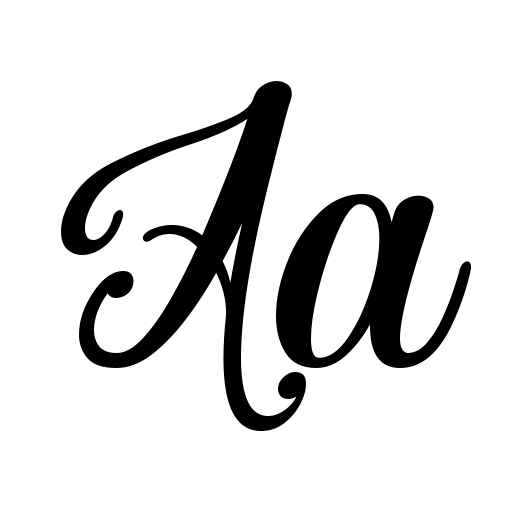
Brightly is a lively script font with a casual, hand-lettered feel, featuring smooth, flowing strokes and moderate contrast that convey warmth and friendliness. Its upright, slightly condensed letterforms and distinctive, playful details make it ideal for branding, invitations, and packaging where a personal, approachable touch is desired. This font shines best in designs seeking a joyful, creative vibe without losing readability or charm.
Brightly Font
About Brightly Font